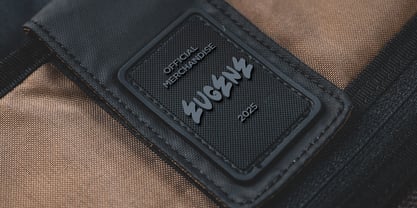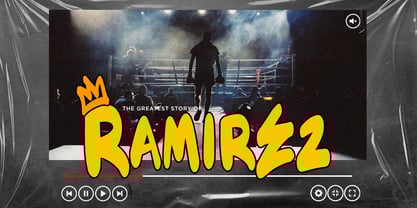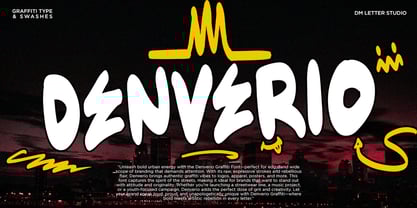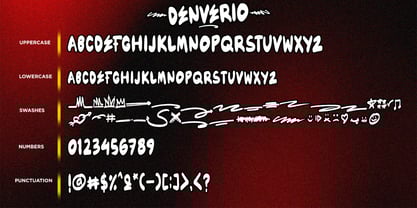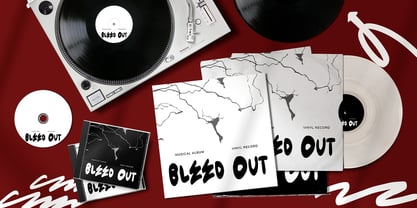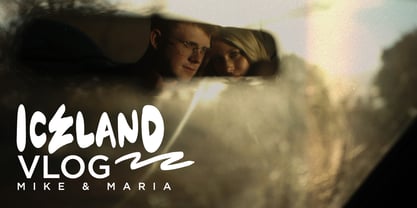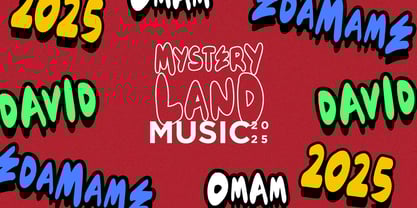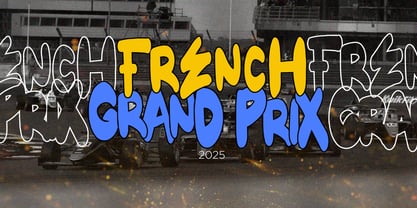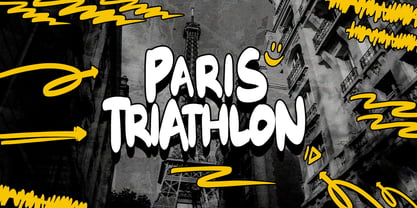
Denverio
by DM Studio
The Denverio Font Family was designed by Dimas Prasetyo and published by DM Studio. Denverio contains 2 styles and family package options.
Denverio – Graffiti Font & Swashes
Unleash bold urban energy with Denverio, a graffiti font that fuses modern edge with vintage rebellion. Perfect for logo design, luxury streetwear, elegant packaging, or gritty sign painting, this typeface delivers expressive strokes and rebellious personality that demand attention.
Whether you're crafting a modern brand, a retro street poster, or a luxury hip-hop album cover, Denverio captures the spirit of the streets. Each letter is charged with movement—making it ideal for brands that want to stand out with attitude and originality.
This graffiti font is more than urban style—it's a blend of elegant chaos and precise imperfection. With swashes included, you have full control to shape designs that feel hand-painted, heartfelt, and truly unforgettable.
Perfect For:
• Logos with impact and movement
• Luxury streetwear brands
• Modern posters & editorial layouts
• Elegant but edgy social media designs
• Vintage sign painting, murals & event art
• Urban branding and hip-hop albums